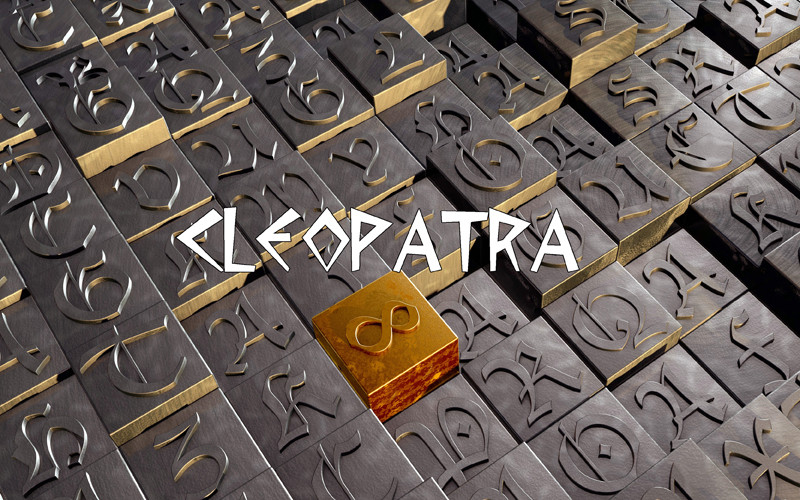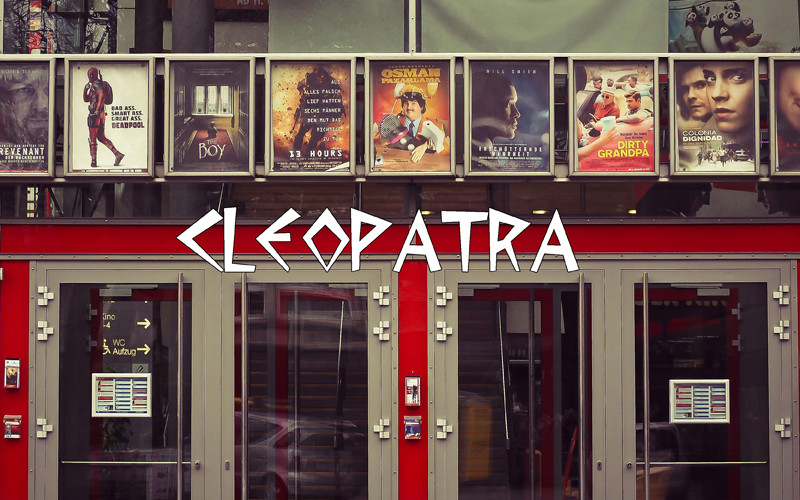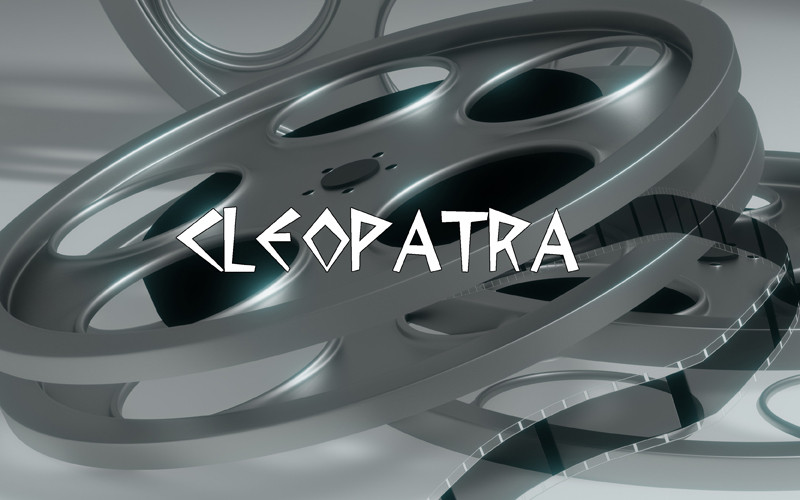
Cleopatra Font
Directly from the film directed by Joseph L. Mankiewkz, starring an unforgettable LIZ TAYLOR and Richard Burton, the new font for all admirers of the film.
Direttamente dal film diretto da Joseph L. Mankiewkz, interpretato da una indimenticabile LIZ TAYLOR e da Richard Burton, il font inedito per tutti gli estimatori del film.
Designer Name: Paolo Arfelli Vannucci